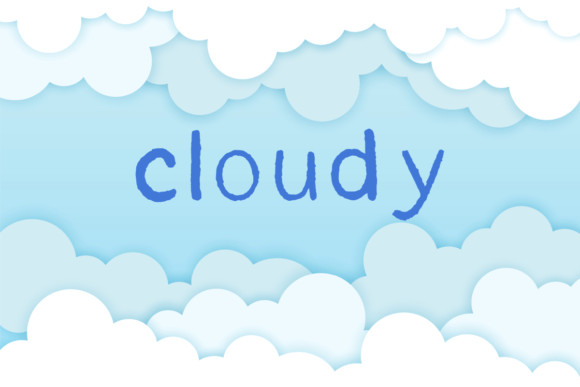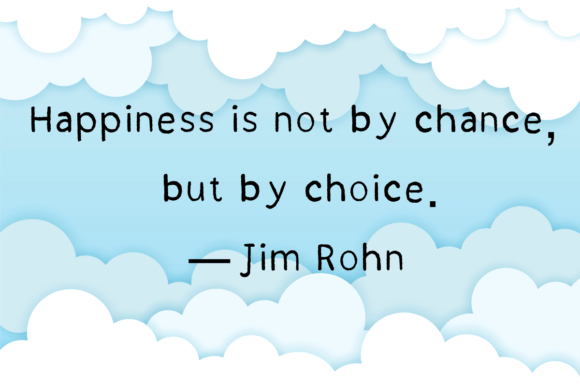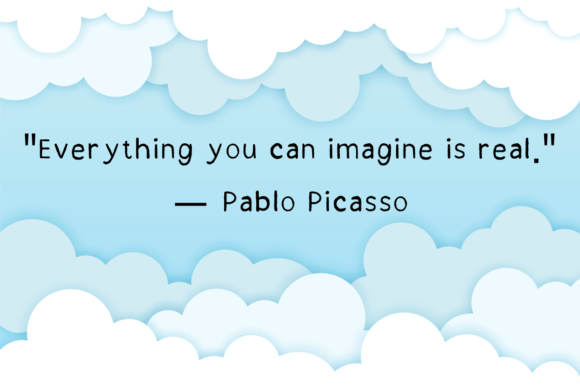
Cloudy: A Simple Handwritten Font Full of Playful Charm
If you’re in search of a simple handwritten font that combines fun, clarity, and a modern feel, Cloudy is an excellent choice. This adorable typeface adds a relaxed, friendly vibe to your designs. Whether you’re crafting a card, creating a logo, or building brand visuals, Cloudy helps your message shine in a genuine and approachable way.
Why Cloudy is Perfect for Your Creative Projects
One of the biggest advantages of Cloudy is its versatility. This font doesn’t try too hard to be elegant or edgy—it’s refreshingly honest and playful. As a result, it can be used across a wide variety of creative applications.
Here are some perfect use cases:
Birthday cards, thank-you notes, and invitations
Logo design for small businesses and handmade shops
Inspirational quotes and social media graphics
Printable planners and educational worksheets
Labels, stickers, and product packaging
Moreover, Cloudy’s gentle curves and slightly bouncy baseline give it a whimsical, hand-drawn look that immediately captures attention.
Features That Make Cloudy Stand Out
Cloudy is more than just cute—it’s also functional. Thanks to its clean stroke width and balanced letter spacing, it remains highly legible across different screen sizes and print layouts. Even in busy designs, Cloudy manages to stay readable and engaging.
Here’s what makes this simple handwritten font special:
Friendly and welcoming design
Works well in both lowercase and all-caps settings
Because of these features, Cloudy makes a reliable choice for both beginner and professional designers.
Ideal for Fun, Lighthearted Typography
Fonts shape how your audience feels. Cloudy evokes a mood of positivity and friendliness. That’s why it works perfectly in designs meant to connect emotionally with viewers.
Try using it for:
Kids’ book covers or learning materials
Art prints or Etsy downloads
Brand identity for playful or handmade products
Personal blog graphics or lifestyle content
No matter the project, Cloudy brings a breath of fresh air to your composition.
When you need a typeface that feels informal yet well-crafted, Cloudy is your go-to simple handwritten font. Its charming style and broad usability make it a fantastic addition to any font library.